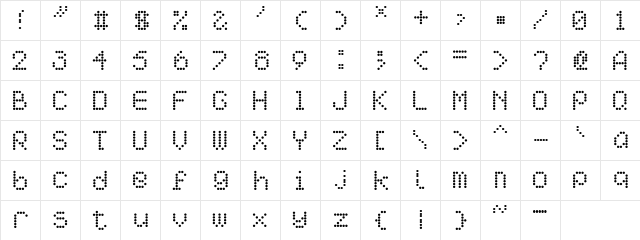
AI pointe Regular
Design Context for AI pointe Typeface
AI pointe takes a measured approach to typography — its balanced proportions and neutral character make it a reliable workhorse for both digital and print work.